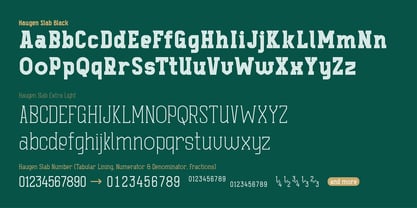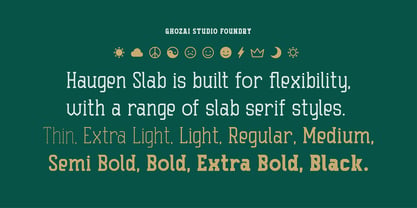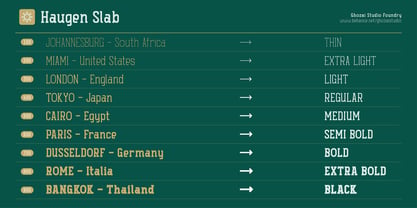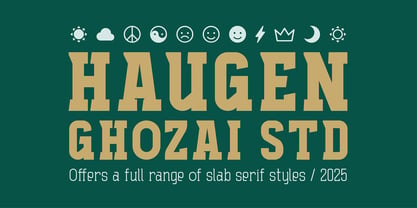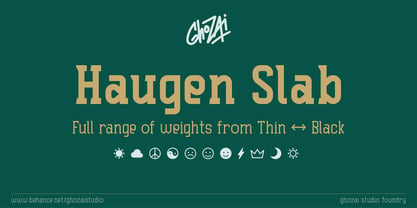
Haugen Slab
The Haugen Slab Font Family was designed by Manzur Ghozaali and published by Ghozai Studio. Haugen Slab contains 9 styles and family package options.
Haugen Slab is a font family featuring a wide range of weights (9), from Thin to Black, making it perfect for a variety of design needs. With a range of OpenType features, multilingual glyph support, and symbols, it’s ideal for projects in multiple languages, ensuring global versatility. Whether you’re working on bold headlines, dynamic sports graphics, or clear signage, Haugen Slab delivers the impact your designs need. Its clean, modern style and varied weights allow it to seamlessly transition from large, attention-grabbing titles to more subtle, refined text applications. Whether used in print or digital media, Haugen Slab provides both legibility and style, offering endless possibilities for your creative projects.
Haugen Slab